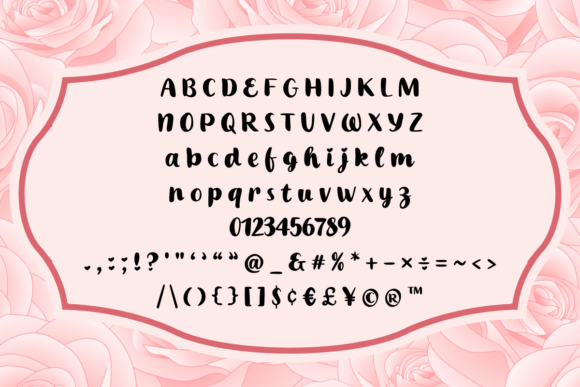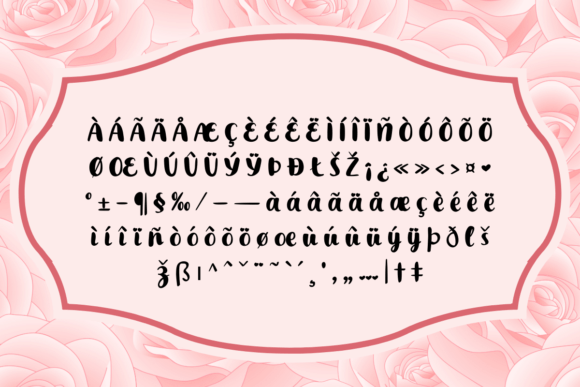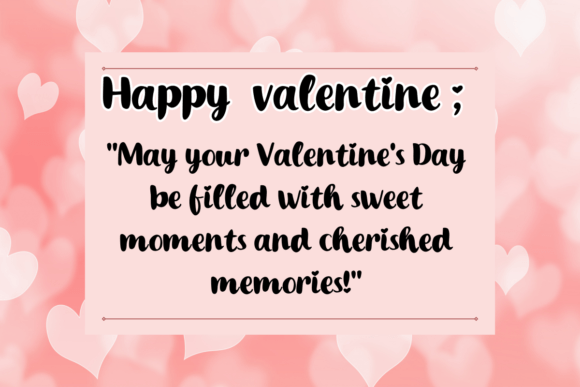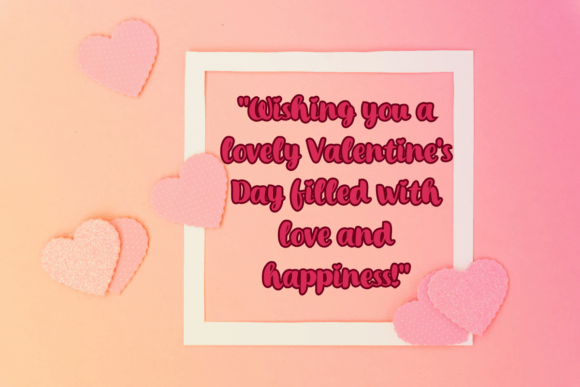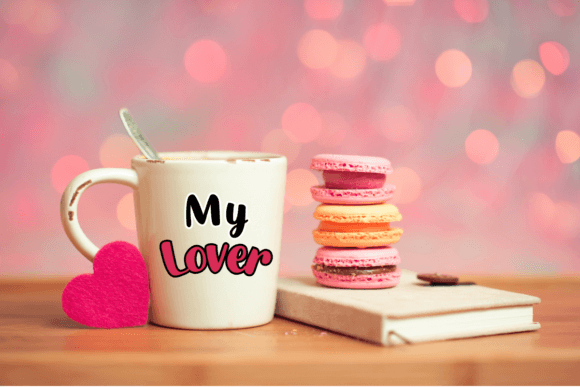
Love is in the Air: Discover the Joy of Happy Valentine Font
Have you ever been brainstorming a creative project, and suddenly, a spark of inspiration hits you? Maybe it’s a Valentine’s Day card, a heartfelt letter to a loved one, or a social media post that spreads love and positivity. Whatever it is, the right font can make all the difference. That’s where the Happy Valentine Font comes in – a beautiful, handwritten font designed to add a touch of warmth and personality to your creations.
This versatile font is perfect for writing notes, making diary entries, or crafting greeting cards. But its uses don’t stop there. With Happy Valentine Font, you can also create stunning banners, designs for mugs, cards, shirts, stationery, and even social media posts. As a designer, you’ll appreciate the value of this font in adding a unique, handmade feel to your projects.
Key Features of Happy Valentine Font
- Font Family: Happy Valentine
- Character Set: Latin, Cyrillic, Greek, and Extended Latin
- Unique Characteristics: Hand-drawn, cursive script with heart and love theme, perfect for Valentine’s Day and romantic occasions
Happy Valentine Font Review
Overall, I was excited to try out the Happy Valentine Font, but I found it to be a bit of a mixed bag. Here are my thoughts:
- The font’s playful and cursive design makes it perfect for Valentine’s Day-themed projects.
- The font is highly customizable, allowing you to adjust the size, color, and style to fit your needs.
- The font includes a wide range of glyphs, including accented characters and punctuation marks.
- The font’s design is a bit too saccharine for my taste, which may not appeal to those looking for a more subtle font.
- The font’s cursive design can make it difficult to read at small sizes.
- The font lacks a bold or condensed version, which may limit its versatility.
Overall, I would give the Happy Valentine Font 3 out of 5 stars. While it’s a great choice for Valentine’s Day-themed projects, it may not be the best option for more general use. With some tweaks to its design and additional features, this font could be even more useful. As it stands, it’s a solid choice for those looking for a playful, cursive font.
The Happy Valentine Font is perfect for creating romantic and playful designs, such as:
– Valentine’s Day cards and invitations
– Social media posts and graphics
– Wedding invitations and decorations
– Children’s birthday party decorations and invitations
For the most out of the Happy Valentine Font, use it in combination with bright colors and playful graphics to create a festive and romantic atmosphere.
What is the recommended font size for using the Happy Valentine Font?
The recommended font size for the Happy Valentine Font is between 12 and 24 points. This allows for clear readability and maintains the font’s unique character. However, feel free to experiment with different font sizes to achieve the desired look for your project.